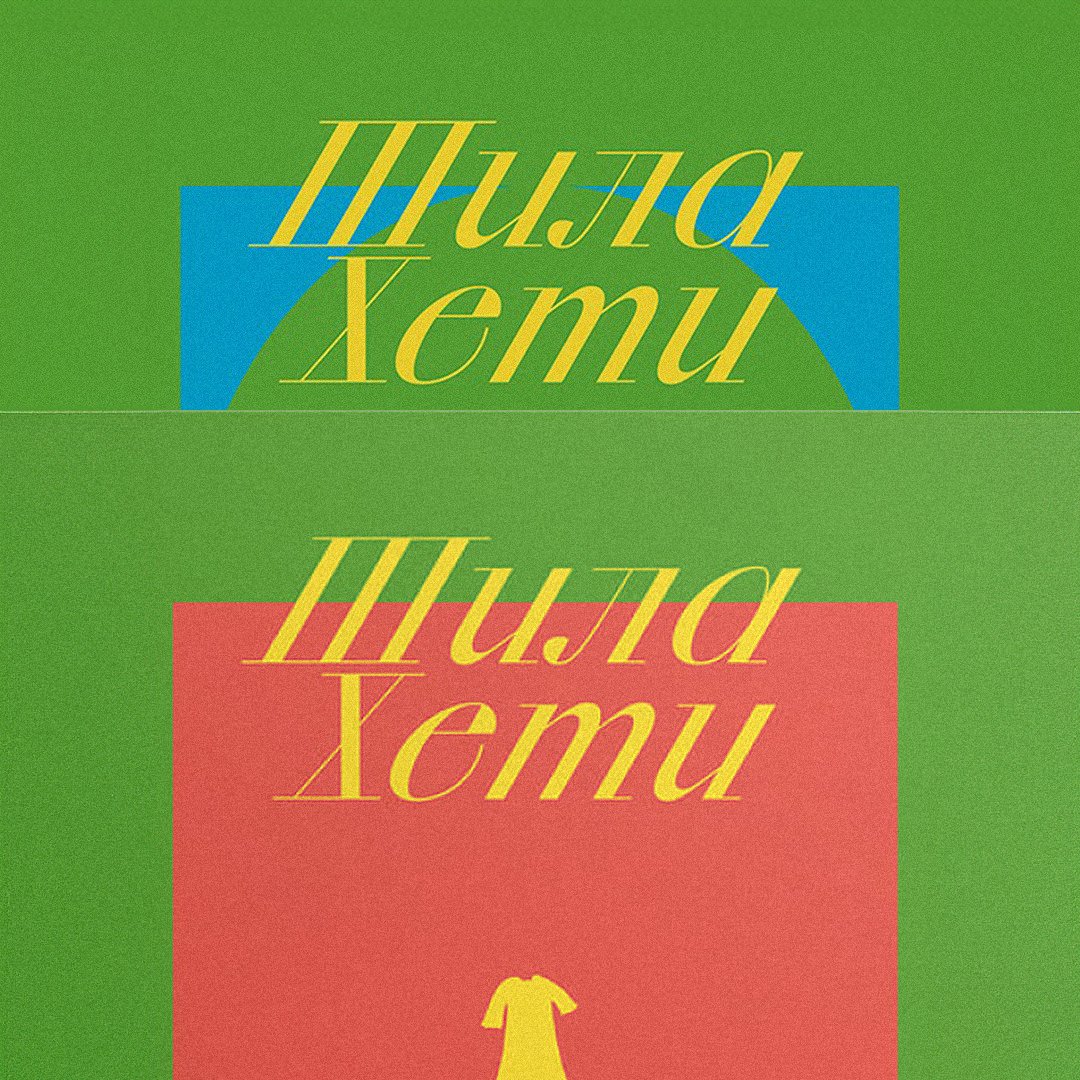
Sheila Heti is a modern Canadian author. The covers of her two autofiction novels, translated into Russian and published by No Kidding Press, are set in Xprmntl 02 Italic by CSTM Fonts. The books were designed at Holystick Studio.
CSTM Xprmntl 02 brings together three entirely different faces into one family: Regular, a superclosed sans with grotesque curly stroke endings, Italic, a contrast serif with deliberately straightened strokes of diagonal glyphs, and Bold, a rough heavy sans with reverse contrast of its strokes and proportions. The three work great together yet do not get lost when left all by themselves.